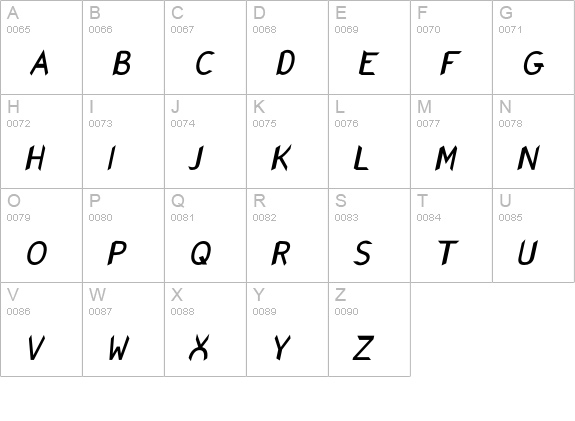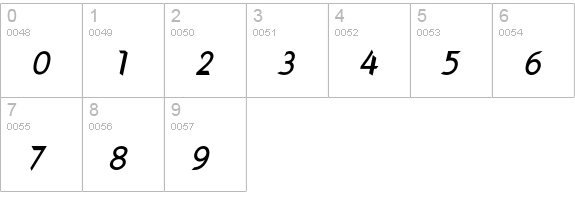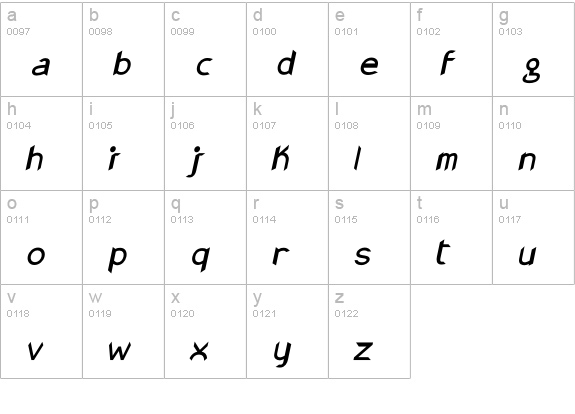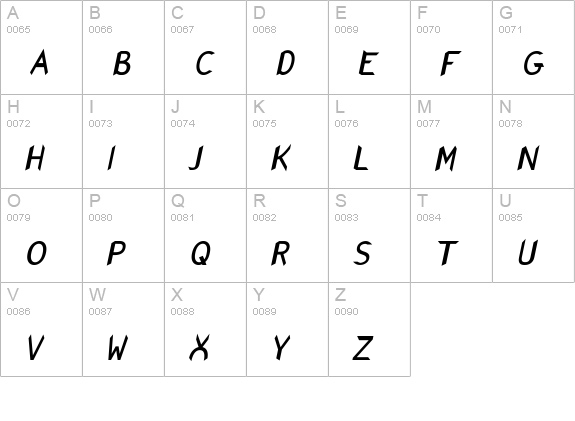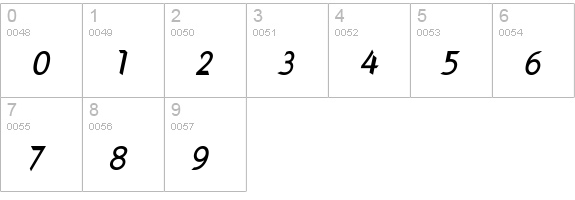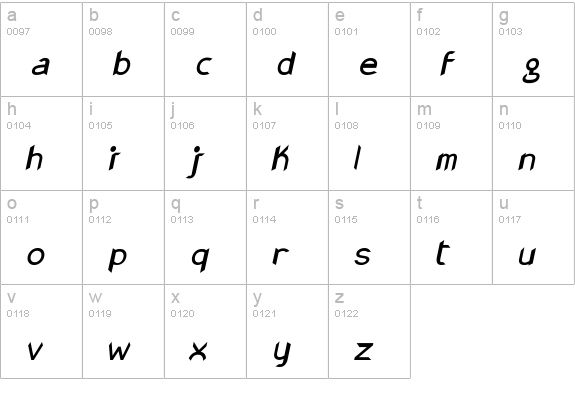
Introducing Gonza-BoldOblique font, a striking and stylish typeface that is sure to make a bold statement in your design projects. This font features a unique blend of elegance and modernity, with its bold and oblique style adding a touch of sophistication to any text. With its eye-catching appearance and versatile design, Gonza-BoldOblique font is perfect for a wide range of projects, from branding and advertising to packaging and web design. Its strong, yet elegant presence will ensure that your message stands out and leaves a lasting impression on your audience. Best of all, Gonza-BoldOblique font is available for free download at FontsMarket.com. This means you can easily access this stunning typeface and incorporate it into your projects without any cost. Don't miss out on the opportunity to enhance your designs with the captivating beauty of Gonza-BoldOblique font. Download it today and unleash your creativity!